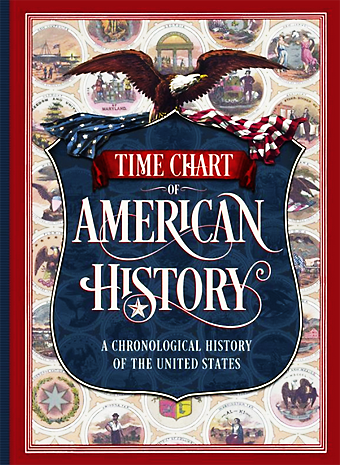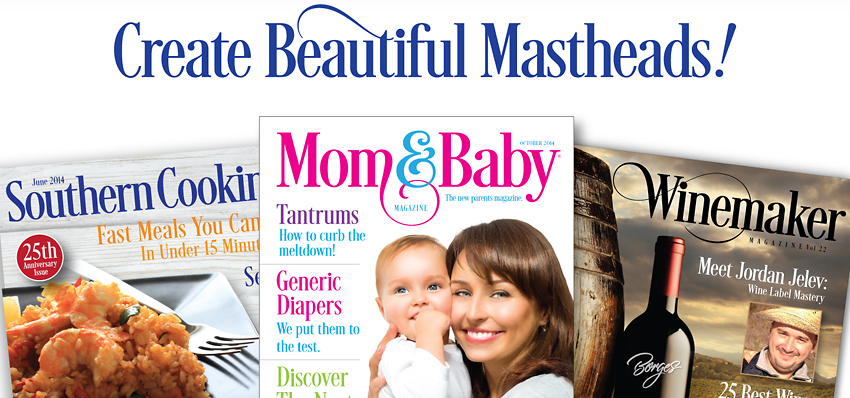
With over five years of design and development, Desire is ready to help you and your clients make a statement by adding elegance and unique flair to your next design project.
Featuring 651 hand-crafted alternate letters, 98 ligatures, 8 flourishes and 6 catchwords, Desire offers an expansive set of options for the designer, making it the perfect choice for books, magazines, packaging, branding and signage. From period style and Victorian to modern and elegant, Desire is strong and stately, yet elegant and decorous.
Many of the alternate uppercase letters feature delicate line flourishes creating a subtle background for the letters. The result is an intertwining and beautifully flourished design.
Unique ligatures go beyond function and add eye catching flair and style. Desire gives the professional artist endless creative possibilities and makes designing exciting and fun. With over 700 glyphs, it's a different font everytime you use it!